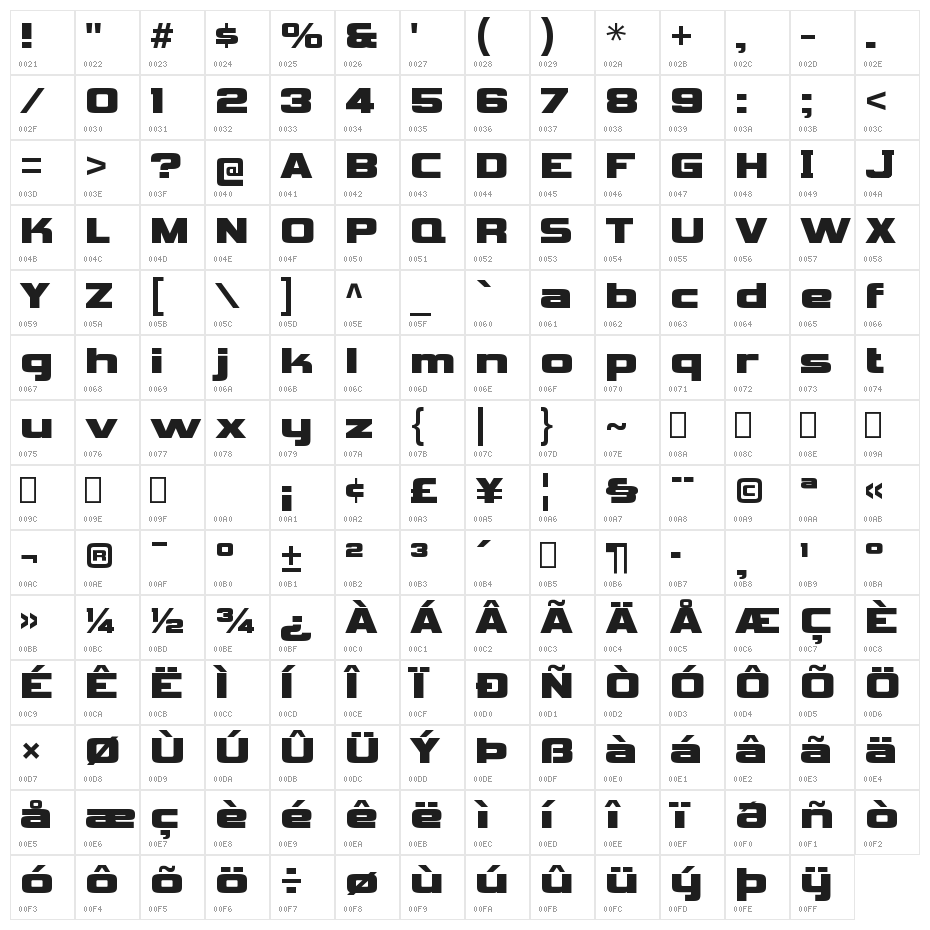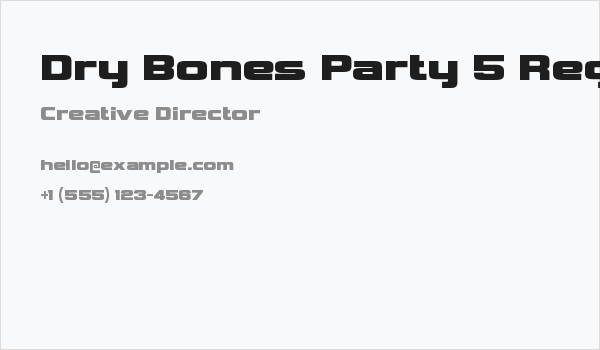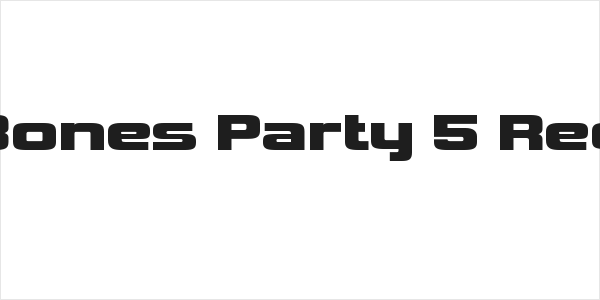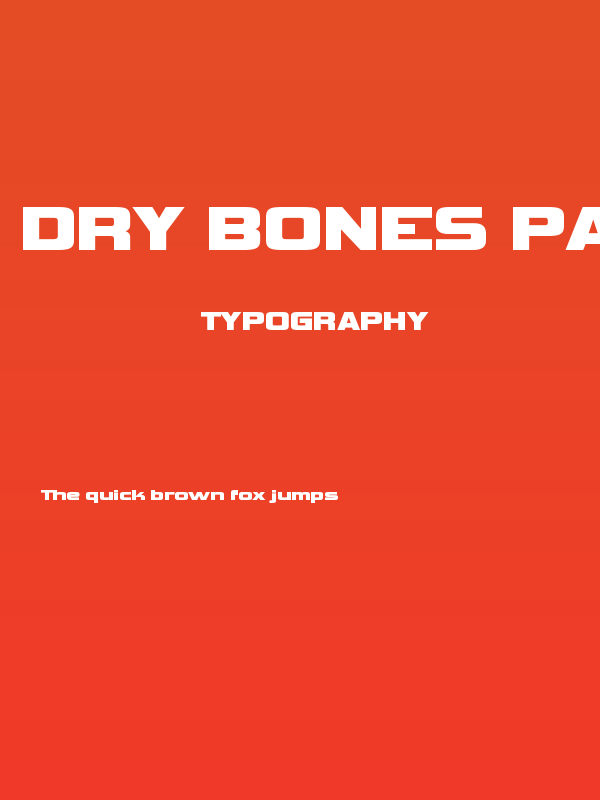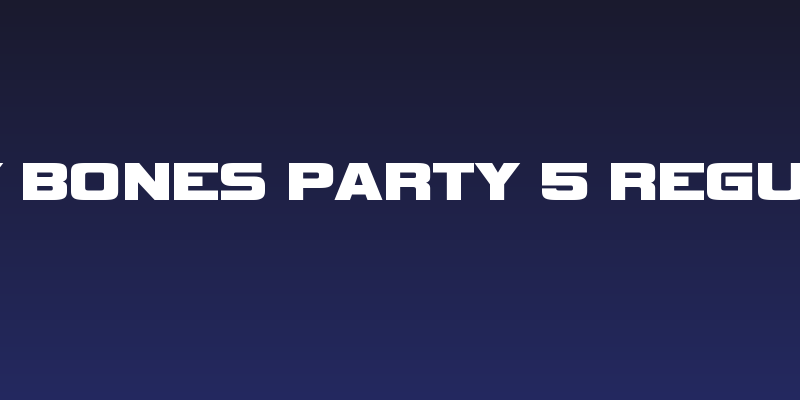
Dry Bones Party 5 Regular Font
Dry Bones Party 5 Regular Description
This font features a bold and robust design with a strong presence, characterized by thick, block-like letters that convey a sense of strength and stability. The uppercase and lowercase letters maintain a consistent width, giving the font a uniform appearance. The numerals and special characters are designed to match the boldness of the alphabet, ensuring a cohesive look across all text elements. The font's geometric shapes and clean lines make it suitable for modern and impactful designs.
| Proposed Projects | Ideal for branding, headlines, posters, and any project requiring a bold, modern look. |